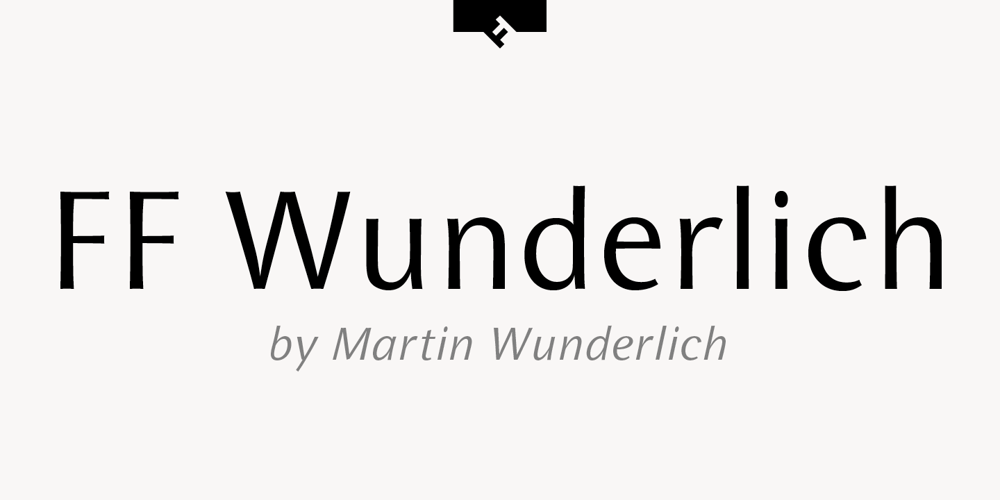
FF Wunderlich
FF Wunderlich font
FF Wunderlich Font Family was designed by Martin Wunderlich and published by FontFont. FF Wunderlich contains 6 styles and family package options. German type designer Martin Wunderlich created this sans FontFont in 1993. The family has 6 weights, ranging from Regular to Bold (including italics) and is ideally suited for editorial and publishing and logo, branding and creative industries. FF Wunderlich provides advanced typographical support with features such as ligatures, alternate characters, and case-sensitive forms. It comes with a complete range of figure set options – oldstyle and lining figures, each in tabular and proportional widths.